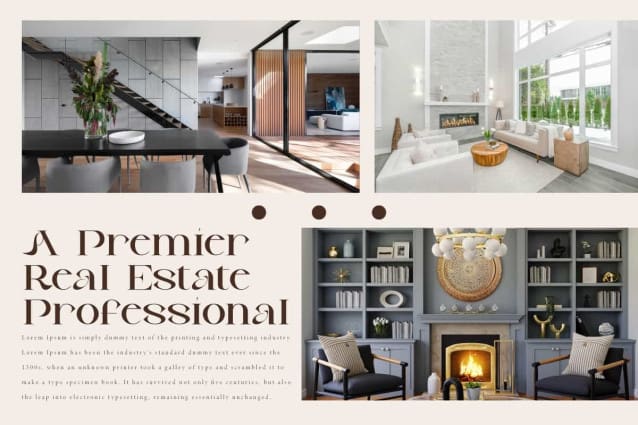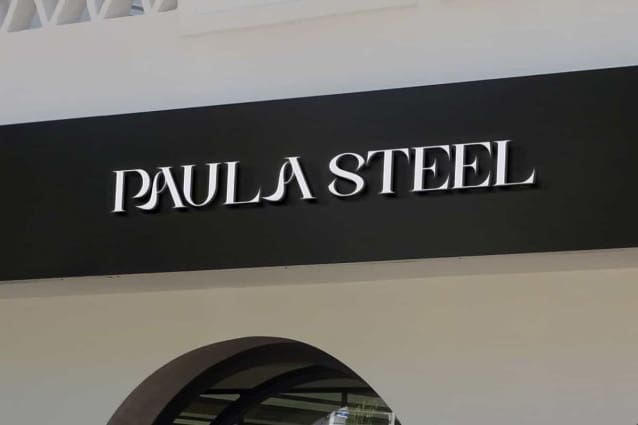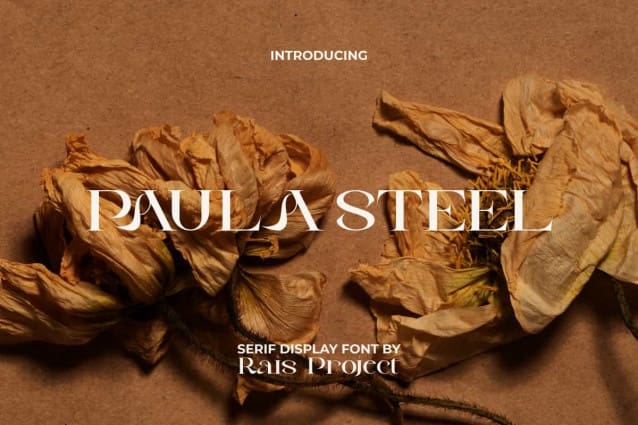
Paula Steel Font
Paula Steel Font is an attractive and modern serif display font. This font has a charm that can’t be missed to be included in your design because it can complement the beauty that has been created. It will be good for any designs, such as brand image, cover, custom design, flyer, invitation, label, marketing material, poster, product packaging, quotes, signage, stationery, website page, and more!
Paula Steel Font includes a full set of Uppercase and Lowercase Letters, Numerals, and large range of Punctuation. This beautiful font will be suitable for various industries, such as accessories, advertising, beauty product, event or wedding organizer, fashion brand, marketing, printing, publishing, real estate, spa and salon, etc.